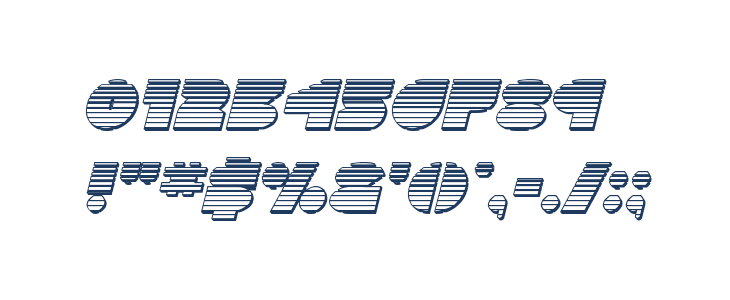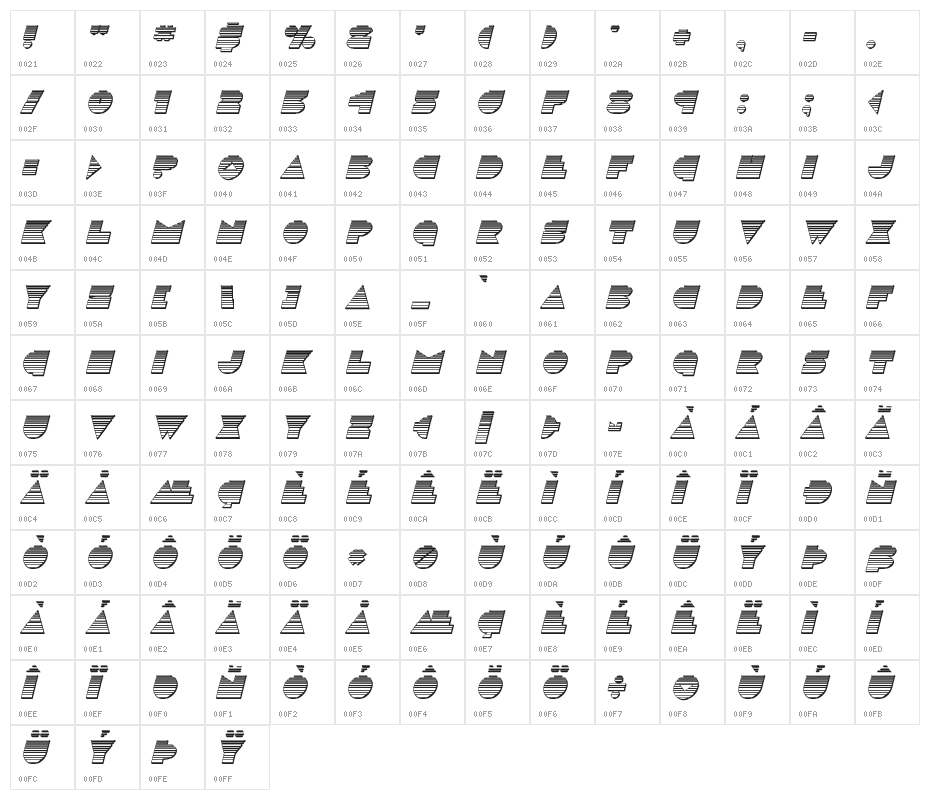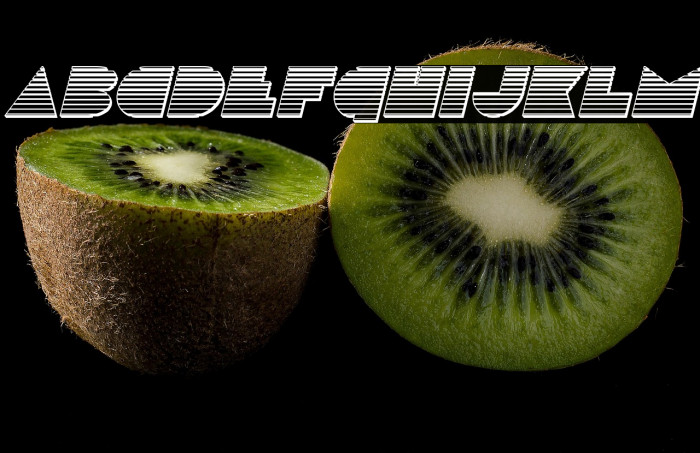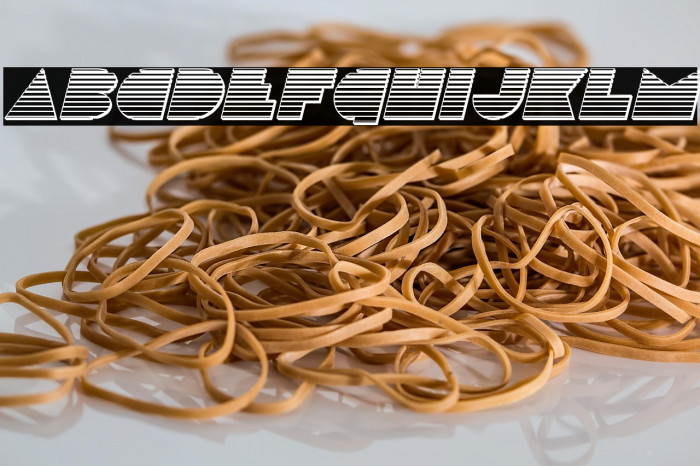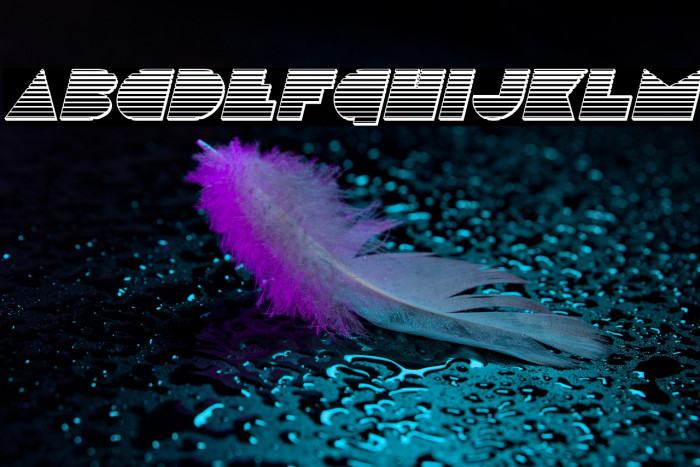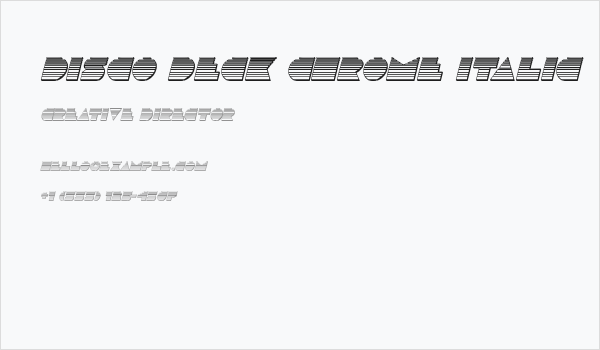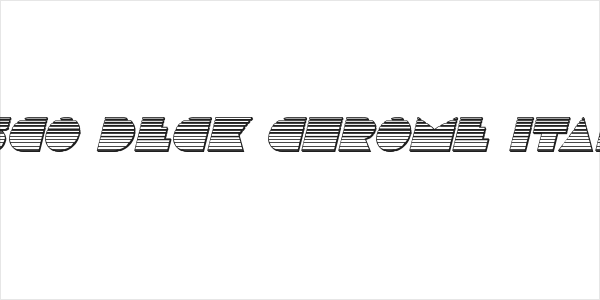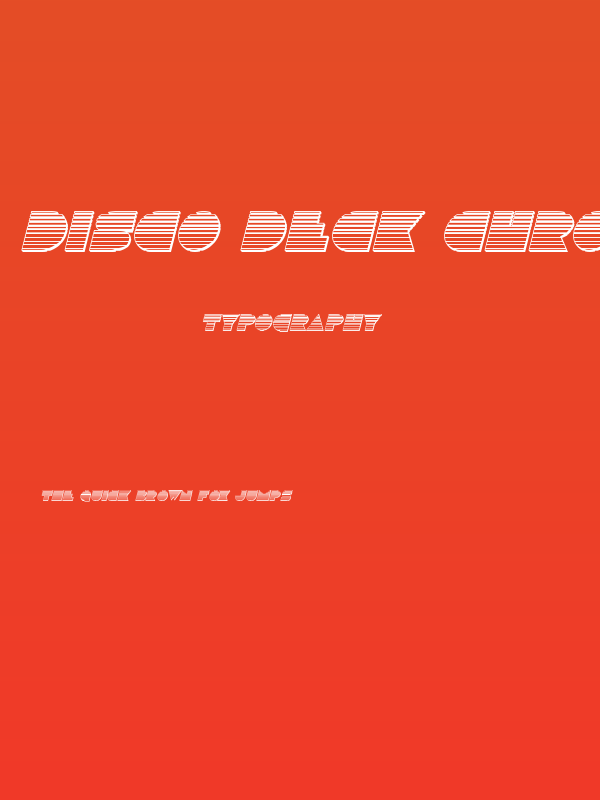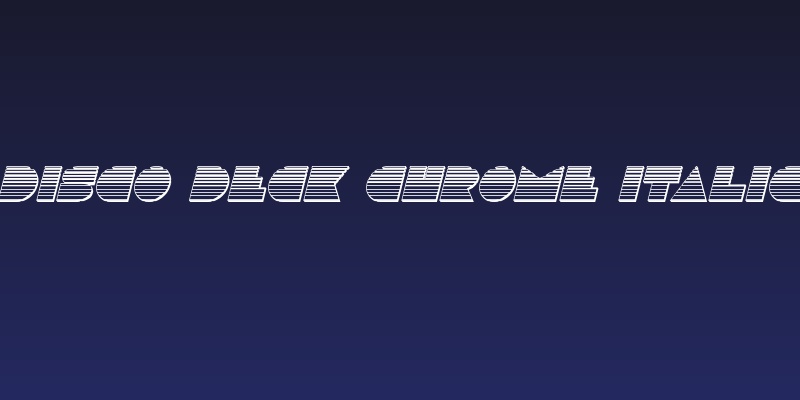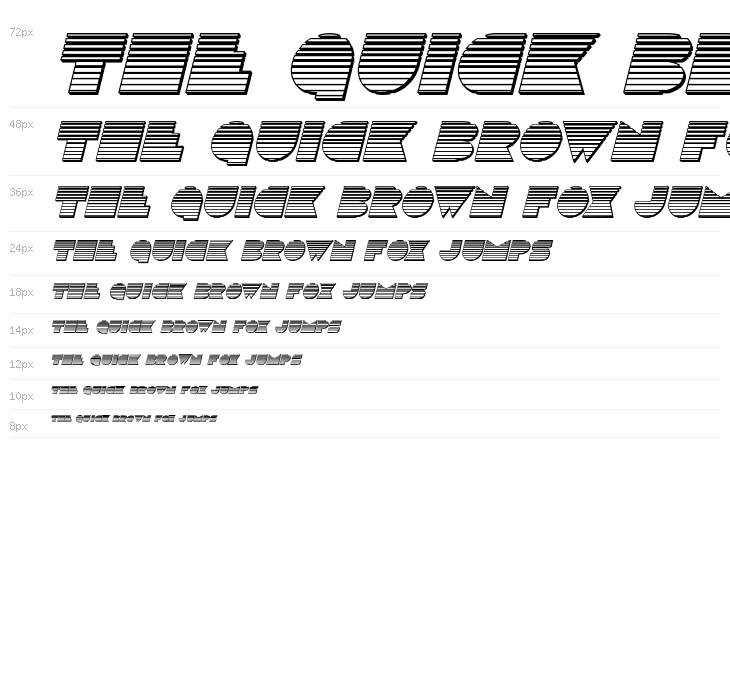
Disco Deck Chrome Italic Font
Disco Deck Chrome Italic Description
This font features a bold, futuristic design with a distinct striped pattern across each character, giving it a dynamic and energetic appearance. The italicized slant adds a sense of motion and modernity, making it stand out in any design. The uppercase and lowercase letters maintain a consistent style, with geometric shapes and sharp angles. The numbers and special characters are equally stylized, ensuring a cohesive look across all text elements. This font is perfect for projects that require a bold statement and a touch of retro-futuristic flair.
| Overall Style | Futuristic, Retro |
| Proposed Projects | Ideal for music album covers, event posters, video game titles, and branding that seeks a retro-futuristic aesthetic. |